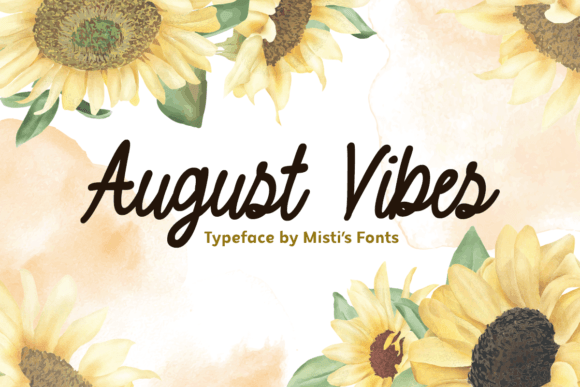
Introducing August Vibes Font: Elevate Your Designs with Elegance and Charm
Are you tired of using the same old fonts in your designs? Do you want to add a touch of sophistication and whimsy to your projects? Look no further than August Vibes Font, a beautiful and elegant typeface that radiates a warm and welcoming feeling. With its unique and stylish lettering, this font is perfect for designers and crafters looking to elevate their work and make it stand out.
The Unique Characteristics of August Vibes Font
August Vibes Font boasts a distinctive and stylish lettering style that sets it apart from other fonts. The letters have a sense of whimsy and playfulness, making it perfect for designs that require a touch of elegance and charm. The font’s unique characteristics include:
- Curved and flowing lines: August Vibes Font features curved and flowing lines that give it a sense of movement and fluidity.
- Intricate details: The font’s intricate details add a level of sophistication and elegance to any design.
- Whimsical feel: The letters have a sense of whimsy and playfulness, making it perfect for designs that require a touch of personality.
August Vibes Font is versatile and can be used for a variety of design projects, including:
- Logo design: Add a touch of elegance and sophistication to your logo with August Vibes Font.
- Poster design: Create eye-catching posters that stand out with this beautiful and elegant font.
- Web design: Elevate your website’s typography with August Vibes Font and add a touch of class to your online presence.
- Stationery design: Create beautiful and elegant stationery, such as business cards, letterheads, and envelopes.
Why Choose August Vibes Font?
With so many fonts available, why choose August Vibes Font? Here are just a few reasons:
- Unique and stylish: August Vibes Font is a one-of-a-kind font that will make your designs stand out.
- Elegant and sophisticated: This font exudes elegance and sophistication, making it perfect for high-end designs.
- Easy to read: Despite its elegant and cursive style, August Vibes Font is easy to read and understand.
- Versatile: This font can be used for a variety of design projects, from logos to websites.
Tips for Using August Vibes Font
To get the most out of August Vibes Font, here are a few tips:
- Use it sparingly: August Vibes Font is a statement font, so use it sparingly to add emphasis to your design.
- Pair it with a sans-serif font: Pair August Vibes Font with a sans-serif font to create a beautiful contrast.
- Experiment with colors: This font looks great in a variety of colors, so experiment to find the perfect hue for your design.
| Font Name | August Vibes Font |
| Author | Misti |
August Vibes Font is a beautiful and elegant font that is perfect for designers and crafters looking to add a touch of sophistication and charm to their projects. With its unique and stylish lettering, this font is sure to elevate your designs and make them stand out. Whether you’re designing a logo, creating a poster, or designing a website, August Vibes Font is the perfect choice.